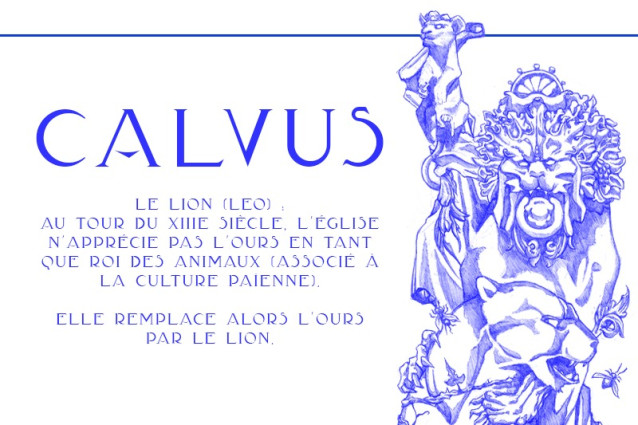
Calvus Font
Calvus Font is inspired by the inscriptions found in the architecture of Chaumont. Its name comes from “calvus mont” — the bald mountain.The typeface blends ancient letterforms with Art Deco proportions, all shaped in a stencil style.